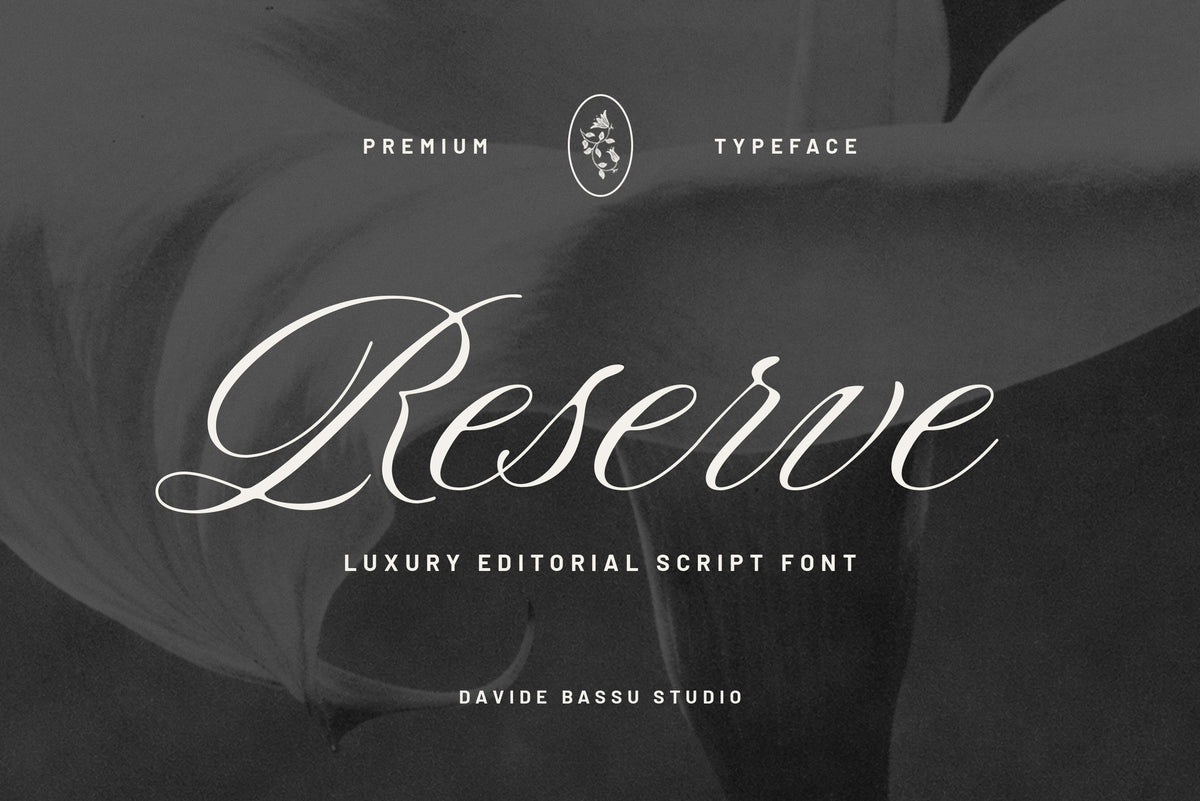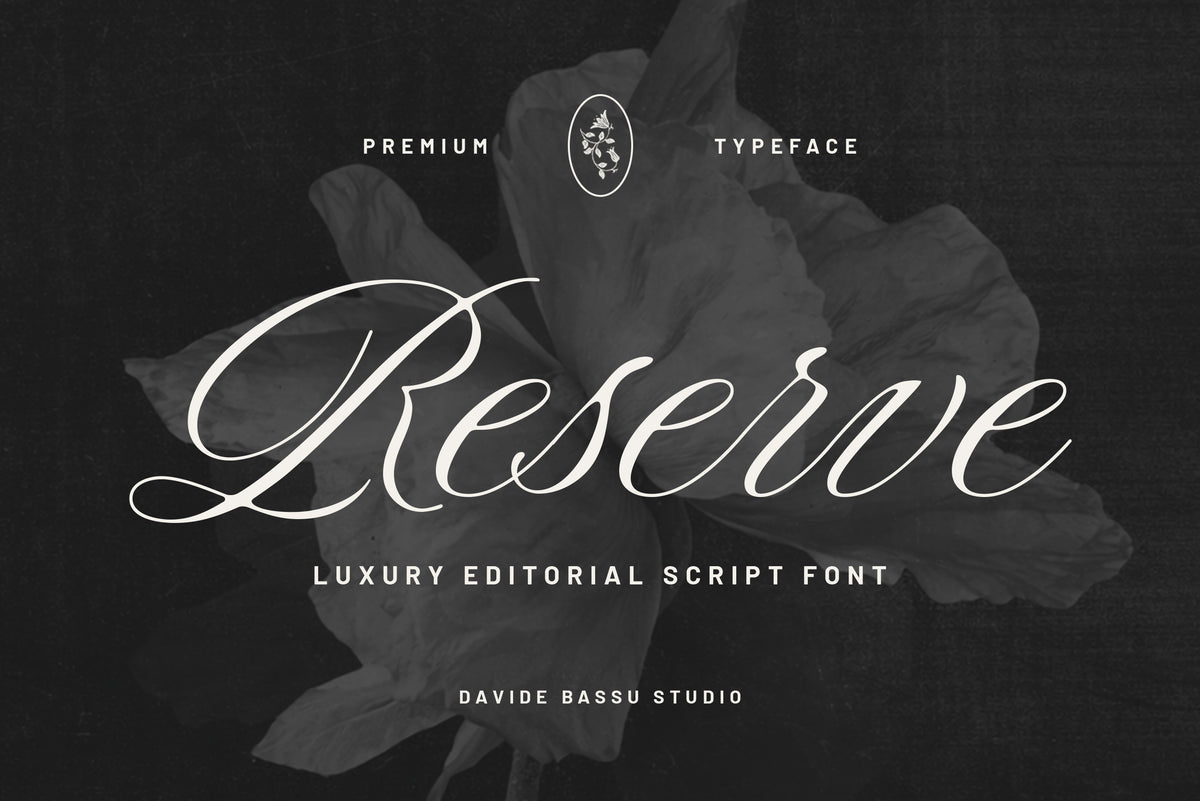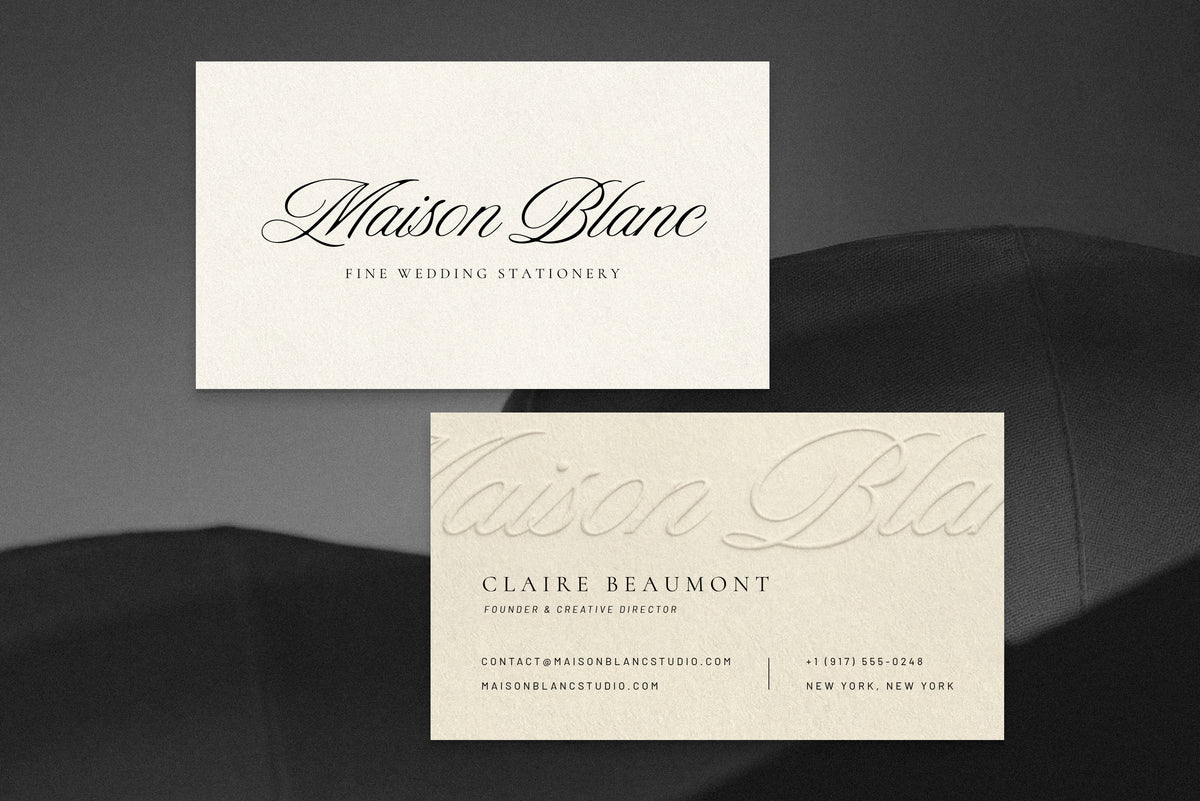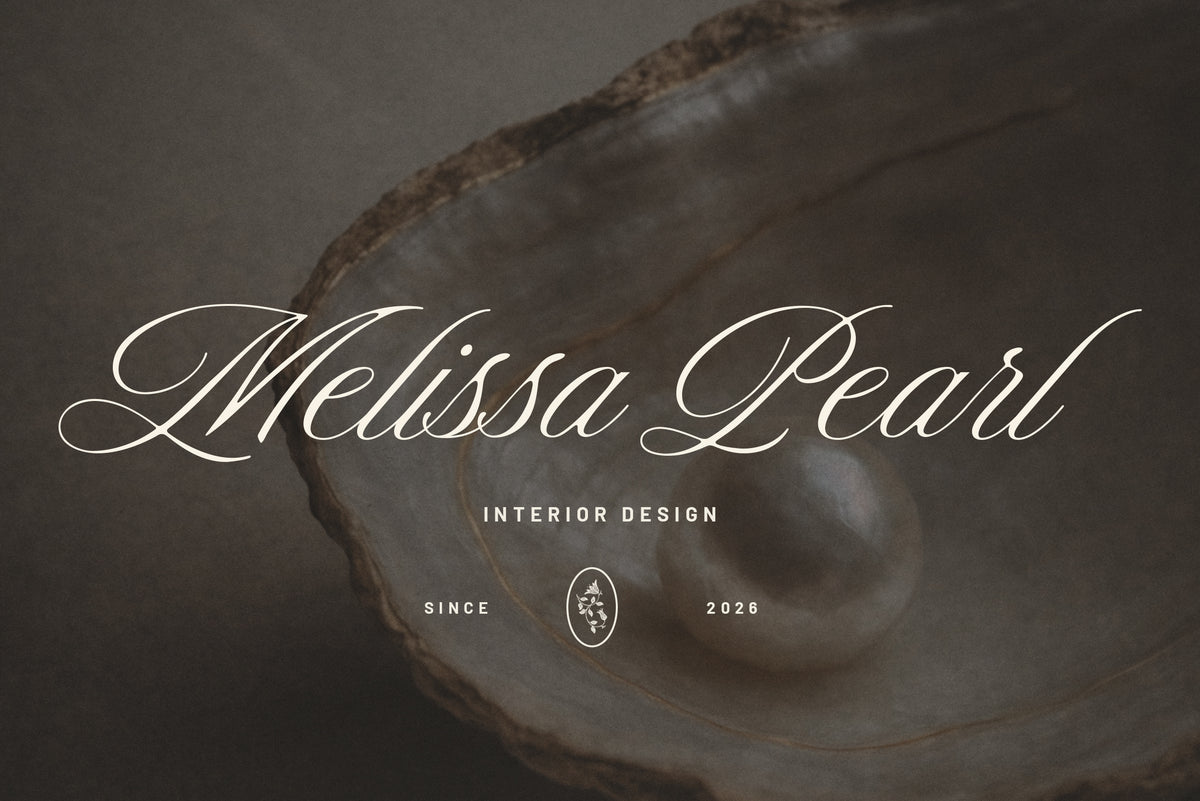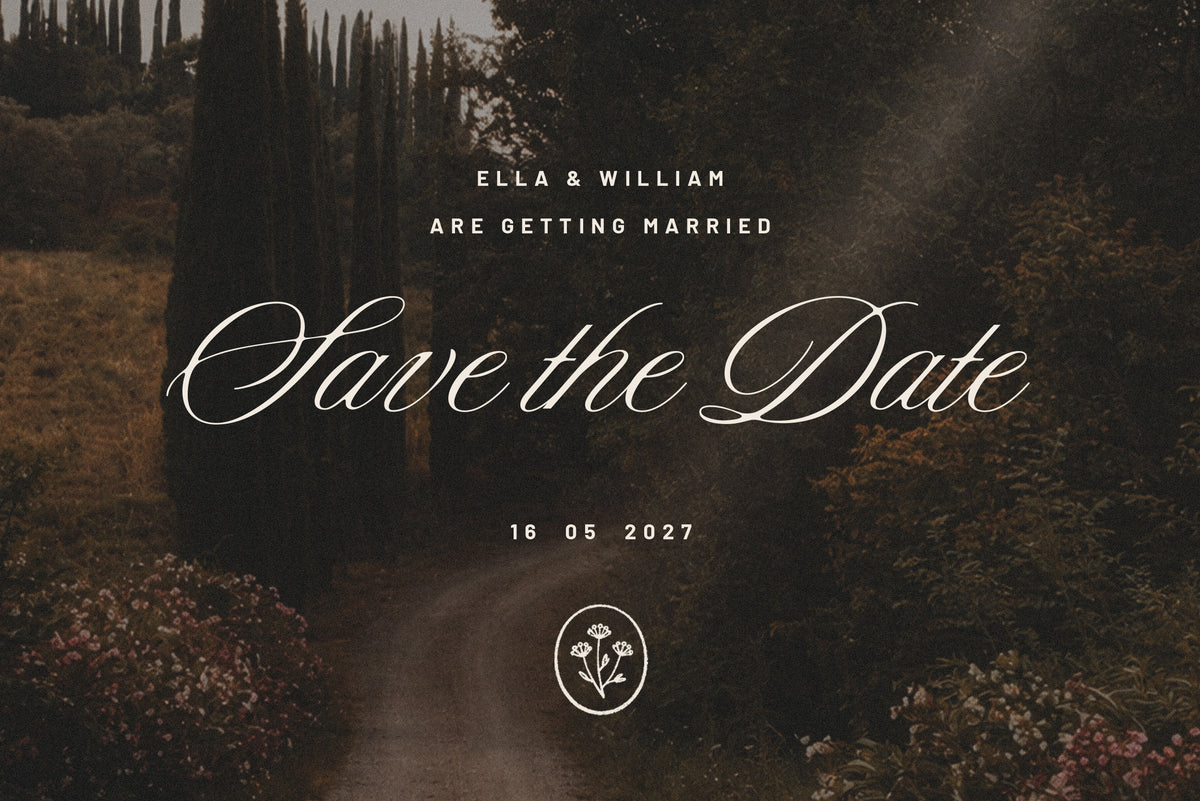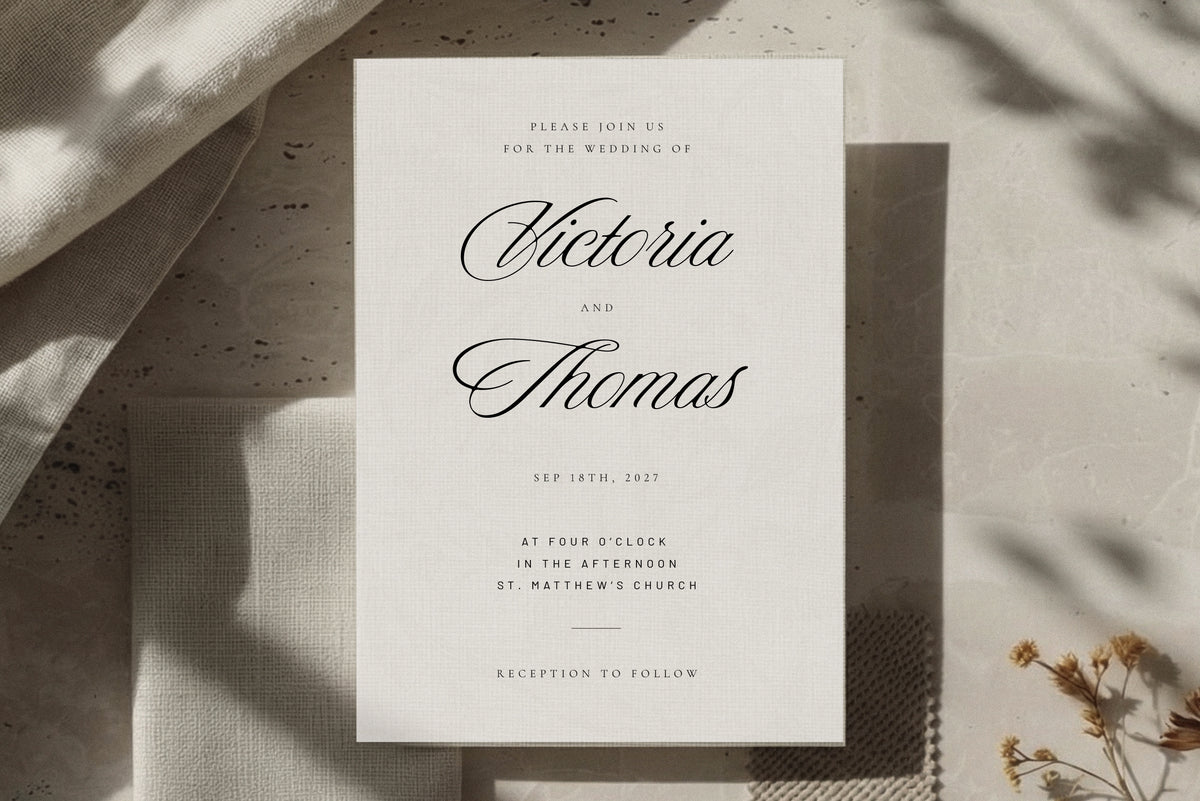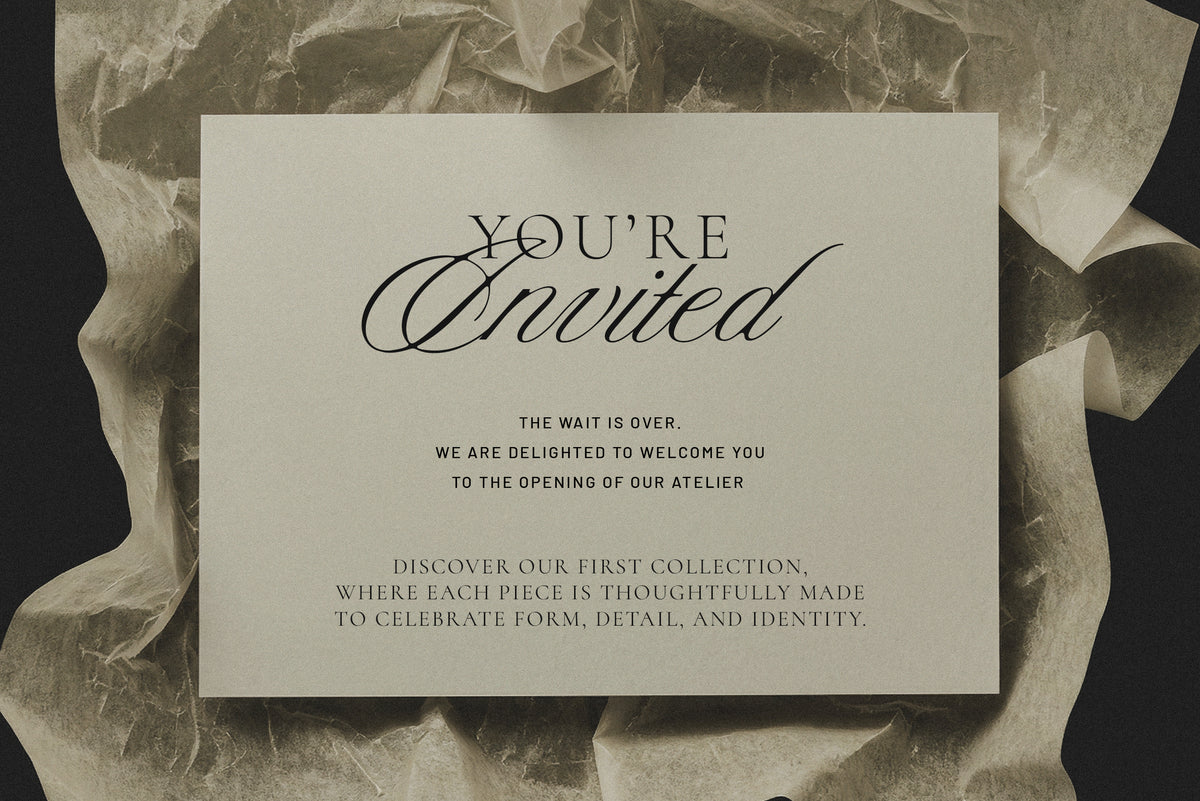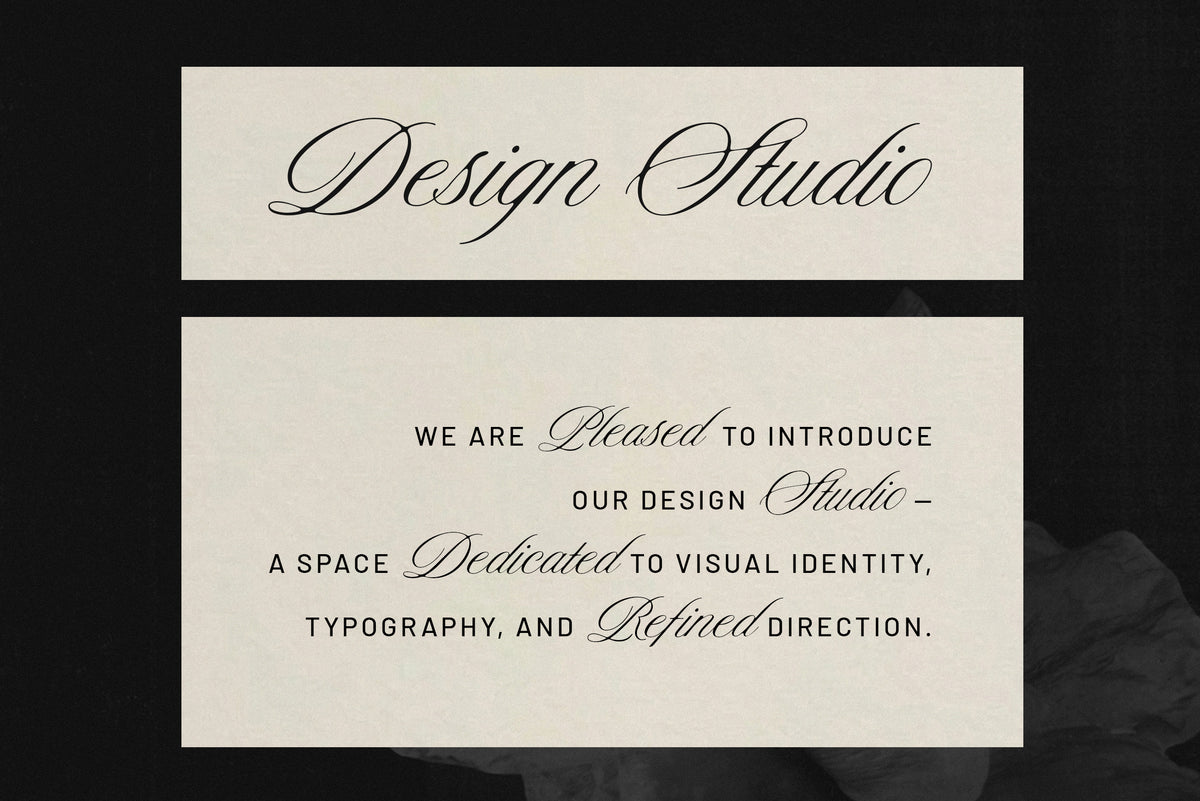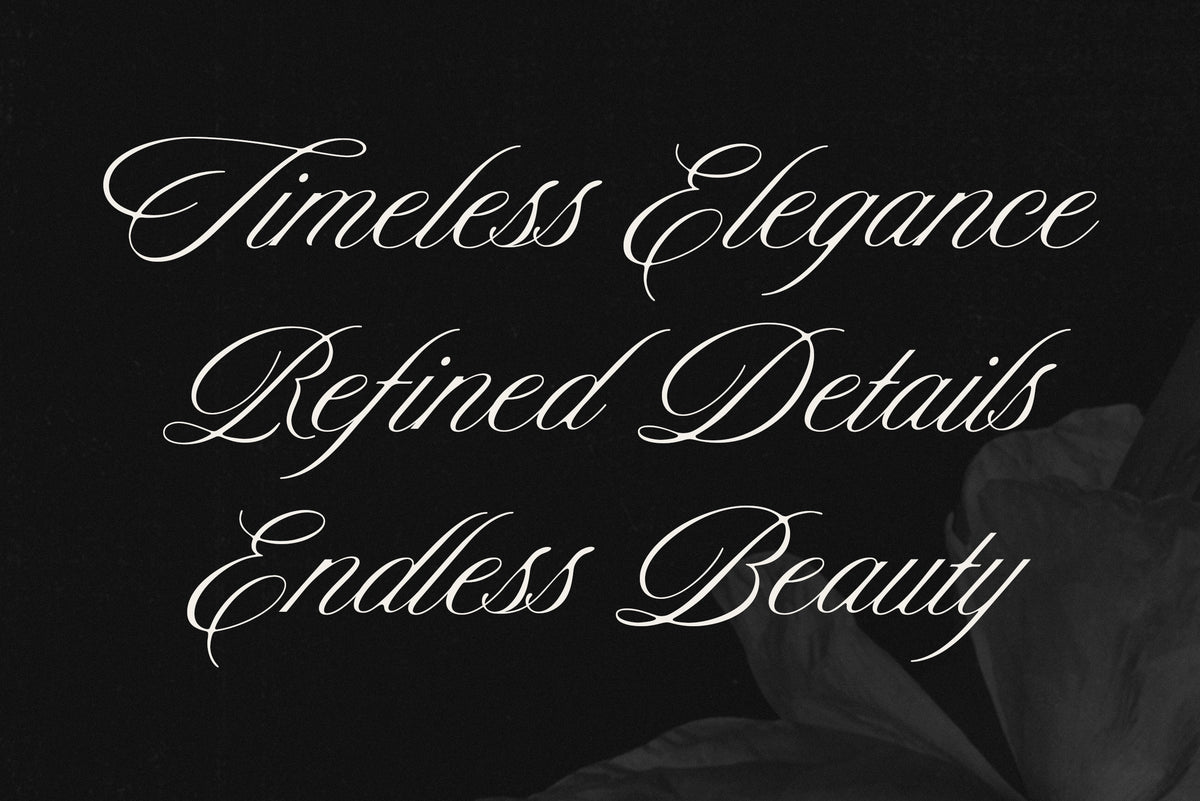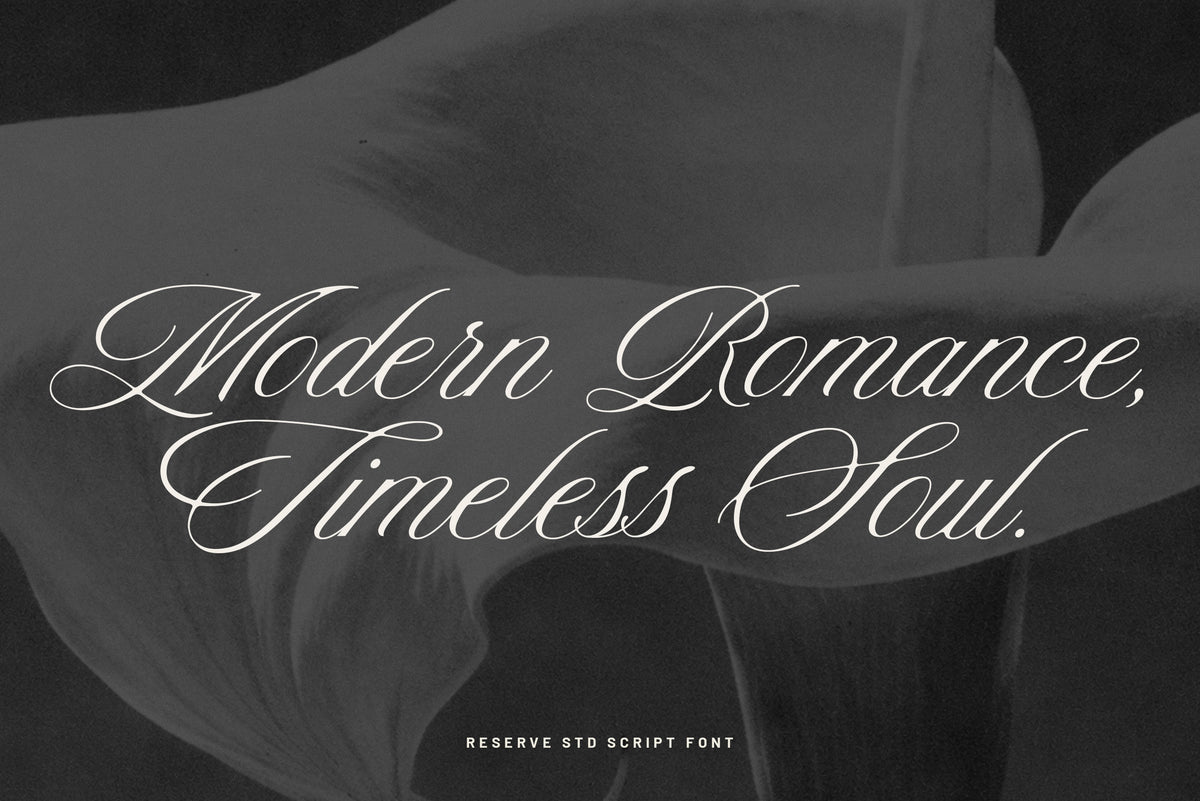
Reserve - Luxury Script Font
Reserve is a refined script typeface with a distinctive editorial character. It blends graceful movement with a sense of structure, combining fluid strokes, delicate details, and a gentle contrast that gives the design both elegance and clarity.
Its letterforms feel expressive yet polished, making the font highly adaptable across a range of uses — from wedding invitations and stationery to branding, packaging, and curated social media content. While it carries a timeless charm, it also maintains a fresh and versatile appeal.
Reserve is particularly suited for names, headings, and short statements where the typography needs to make an impression in a subtle, sophisticated way. The overall aesthetic is poised, romantic, and elevated, with a clean finish and a natural sense of style.